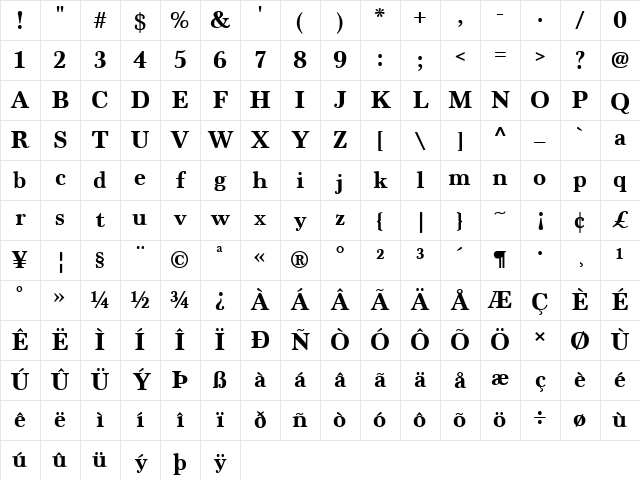
Complete Marion Bold glyph index. Displaying only characters natively supported by Marion Bold font.
Marion is a composed and adaptable typeface that performs quietly and consistently across a wide range of design contexts. Its bold stroke weight gives it real presence on the page.
Who designed the Marion Bold font?